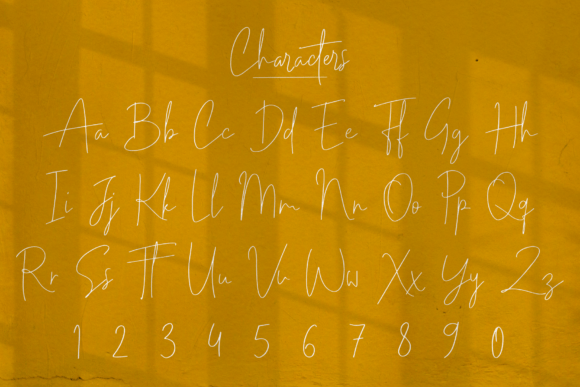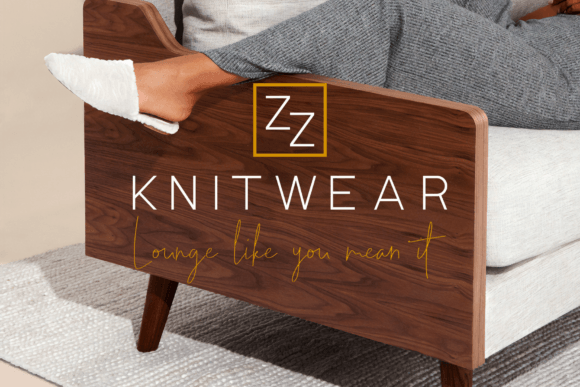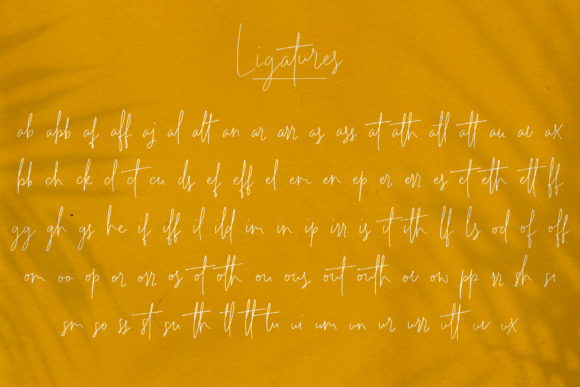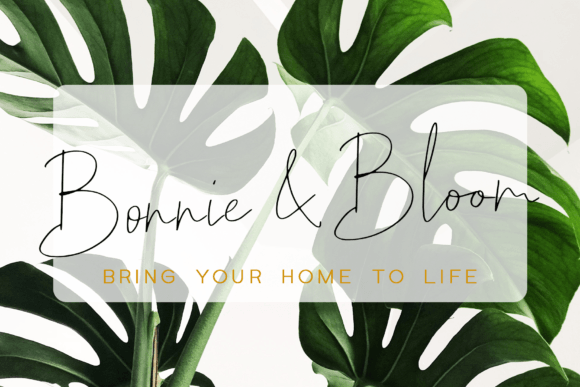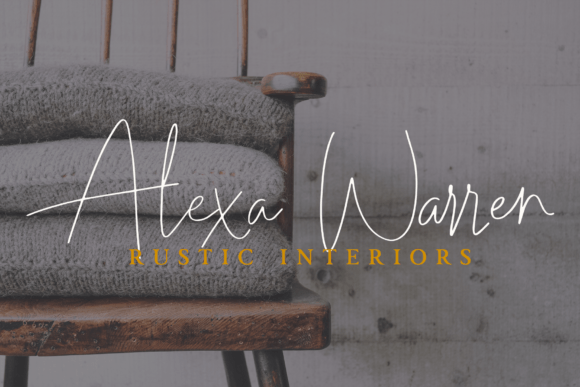
The Ambiance Font: Elevate Your Designs with Elegance and Flair
Have you ever been in the middle of a design project, and suddenly, you’re stuck on finding the perfect font? I recall a recent experience where a client requested a signature logo that exuded elegance and sophistication. After hours of searching, I stumbled upon the Ambiance font, and it was love at first sight! 💕
This thin signature-style script font has been a game-changer for my designs, and I’m excited to share its beauty with you. Ambiance is perfect for creating stunning signature logos, pairing with sans and serif fonts, and adding a touch of personality to your projects.
What Makes Ambiance Special?
Ambiance is a ligature-filled script font that boasts oversized and exaggerated capital letters, making a big statement in any design. Here are some features that make it stand out:
• ✨ Elegant and sophisticated design
• ✅ Ligature-filled script for a unique look
• 🔥 Perfect for signature logos and pairing with other fonts
• 💫 Oversized capital letters for added emphasis
• ✨ The font’s elegance and sophistication are unmatched
• ✅ The ligatures and script style add a touch of personality to any design
• 🔥 The oversized capital letters make a big impact
While Ambiance is an amazing font, there are a few things to keep in mind:
• ⚠️ The font’s thin style may not be suitable for very small text sizes
• 🤔 Some users may find the ligatures and script style a bit overwhelming
The Story Behind Ambiance
Ambiance was designed with elegance and sophistication in mind. The font’s creator aimed to craft a script font that would add a touch of personality to any design, while still maintaining a level of professionalism. The result is a stunning font that’s perfect for signature logos, branding, and more.
Q: What is the Ambiance font best suited for?
A: Ambiance is perfect for creating signature logos, pairing with sans and serif fonts, and adding a touch of elegance to your designs.
Q: Is Ambiance available in different styles or weights?
A: Currently, Ambiance is available in a single style. However, the font’s creator may release additional styles or weights in the future.